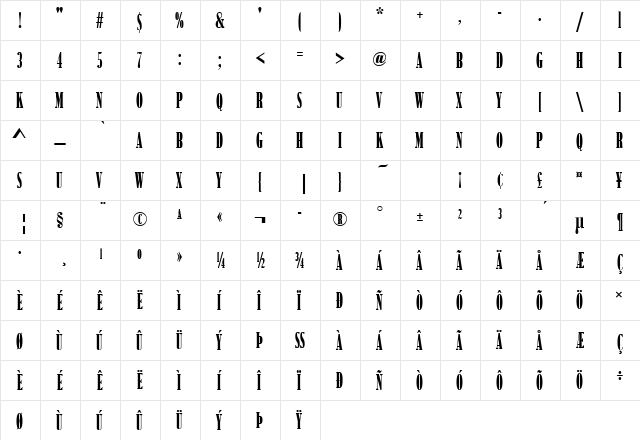
Bodoni Becker No2 Comp Ultra Regular
Design Context for Bodoni Becker No2 Comp Ultra Typeface
Bodoni Becker No2 Comp Ultra takes a measured approach to typography — its balanced proportions and neutral character make it a reliable workhorse for both digital and print work.